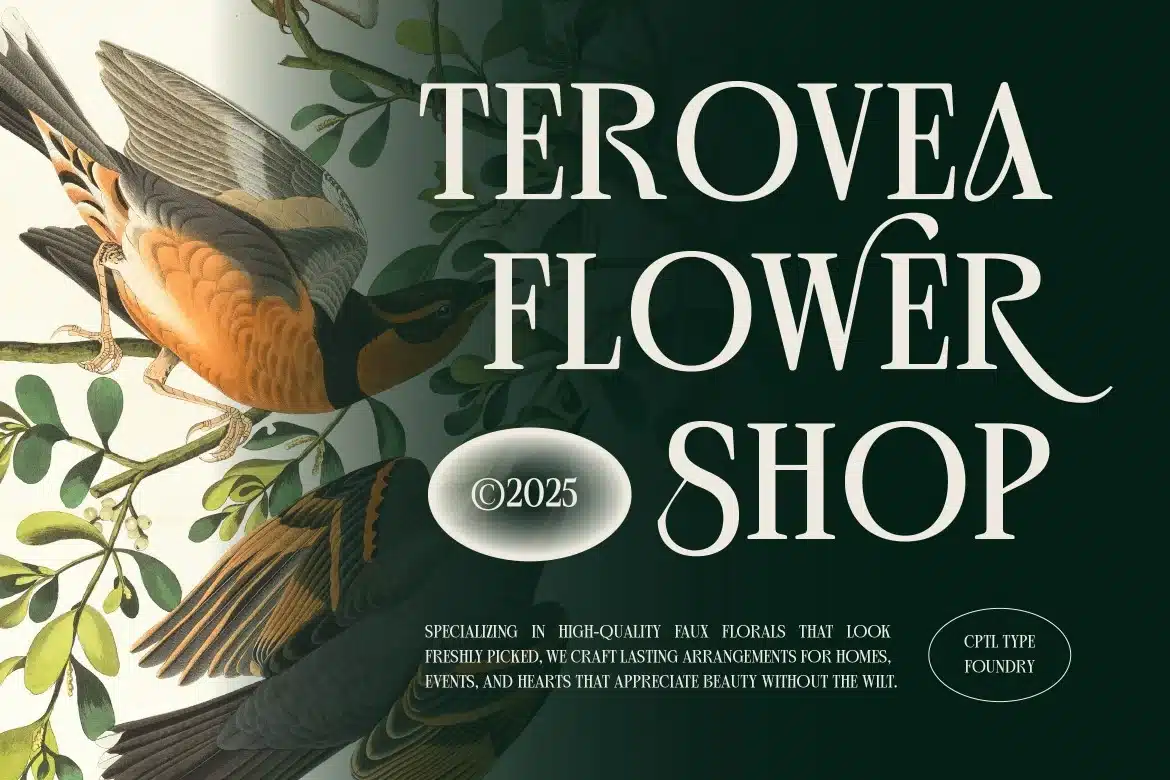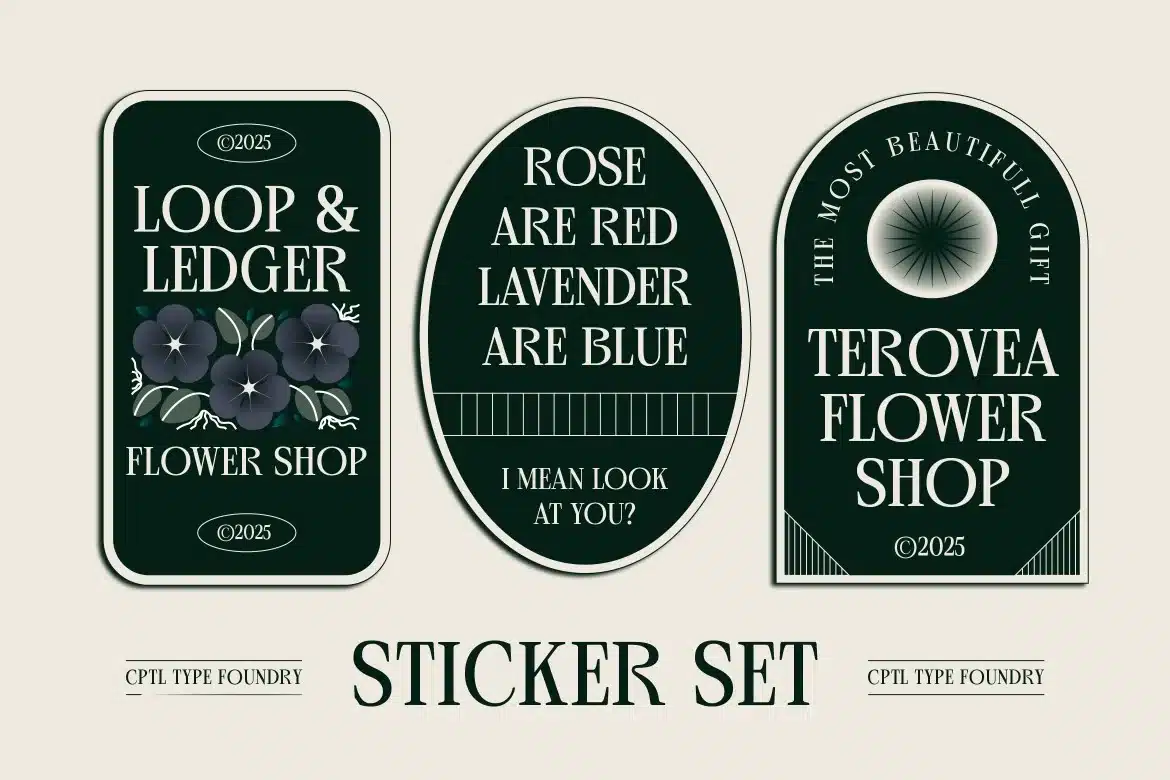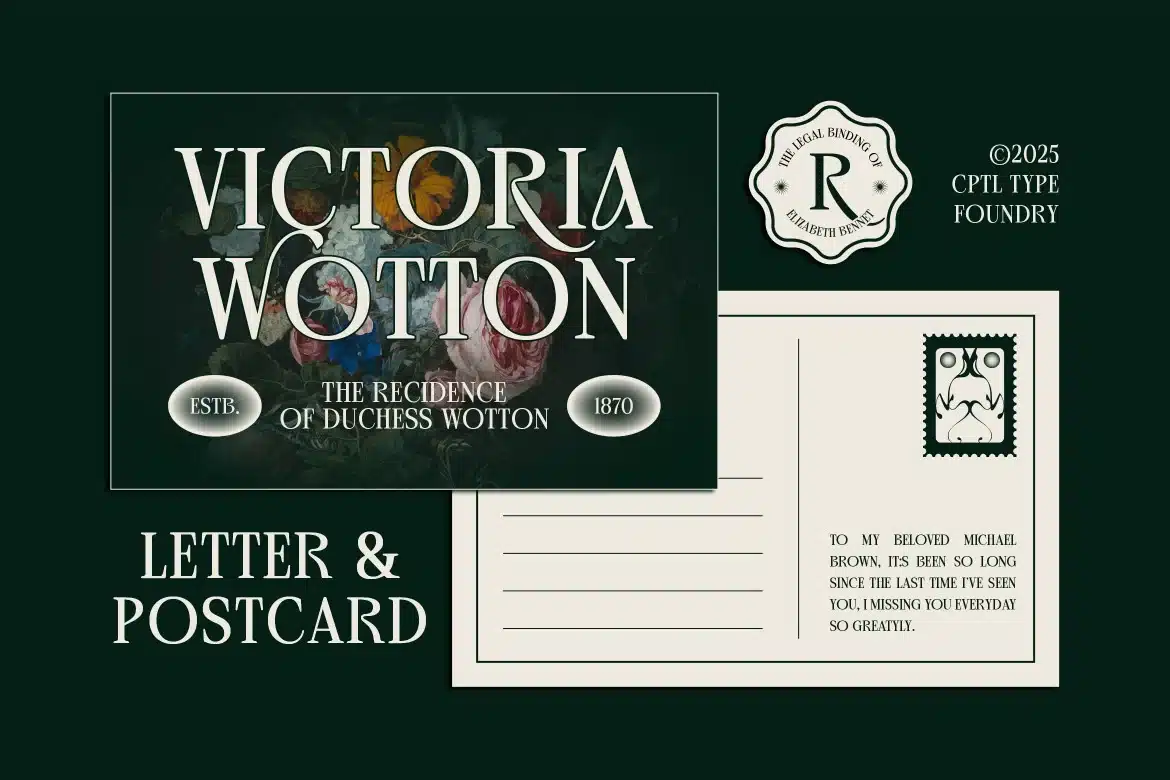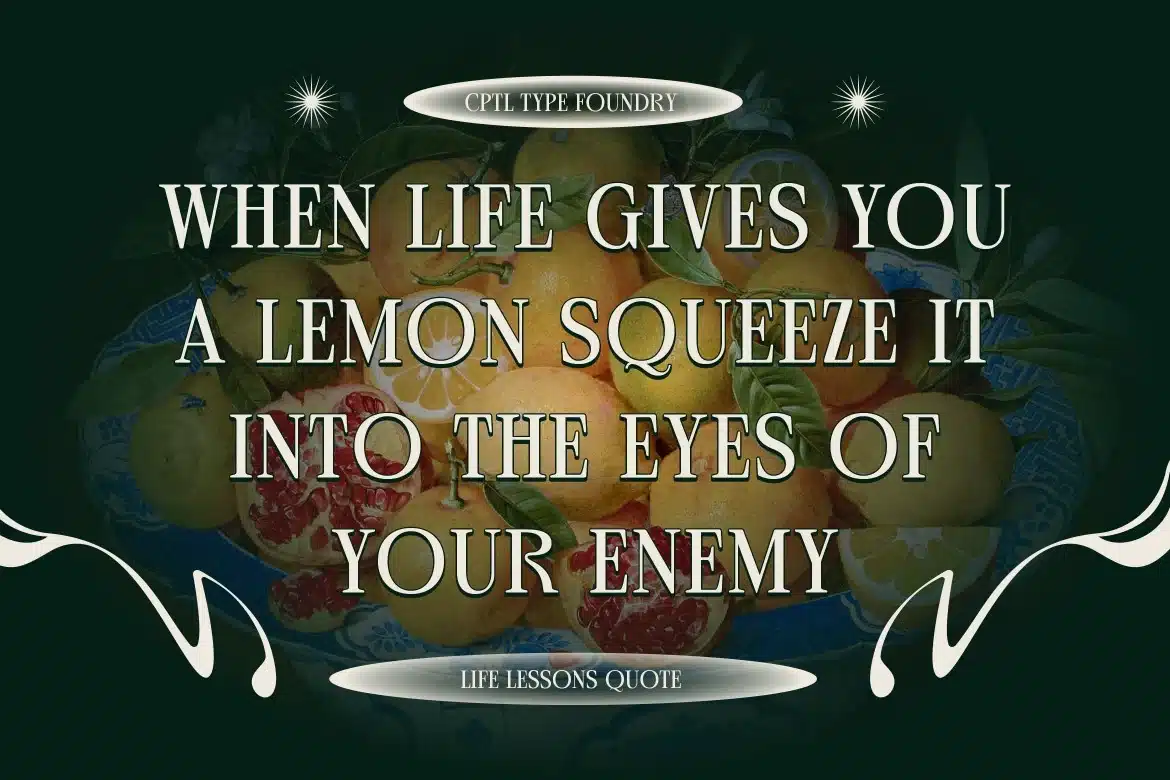
Terovea Font
Terovea is a contemporary serif font inspired by Art Nouveau elegance. Its refined letterforms and graceful curves make it ideal for posters, invitations, headlines, and timeless, classic design themes.
Ideal for branding, posters, headlines, packaging, album art, game visuals, and promotional designs. It adds personality to any creative project and helps your message stand out effortlessly.